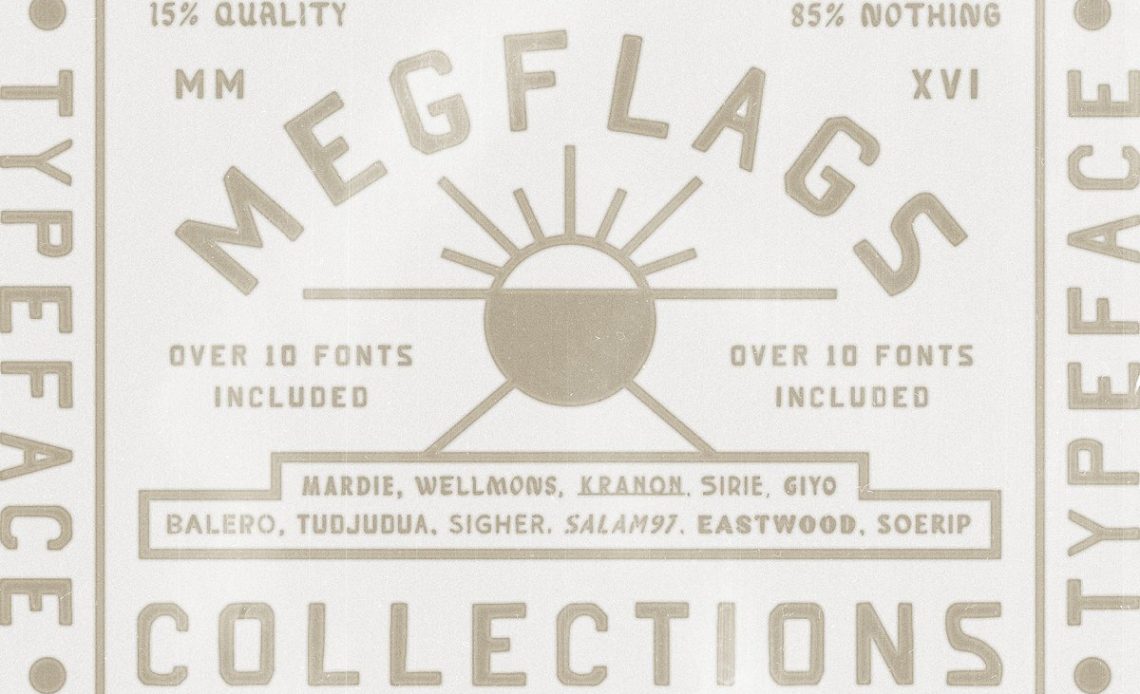
Looking for the best font for your next sign or PowerPoint presentation? Look no further than the 50% OFF MG Typeface Collections, created by renowned font designer Fahrenno Asnawan.
This bundle includes all 11 of the currently released Megflags fonts, giving you access to a wide range of styles and designs. From the elegant and sophisticated Mardie, to the bold and impactful Kranon, there is a font to suit every project and purpose.
But this bundle isn't just about quantity - each of these fonts has been carefully crafted to deliver exceptional quality and style. With attention to detail and a focus on creating fonts that are both eye-catching and easy to read, this collection is perfect for anyone who wants to elevate their designs to the next level.